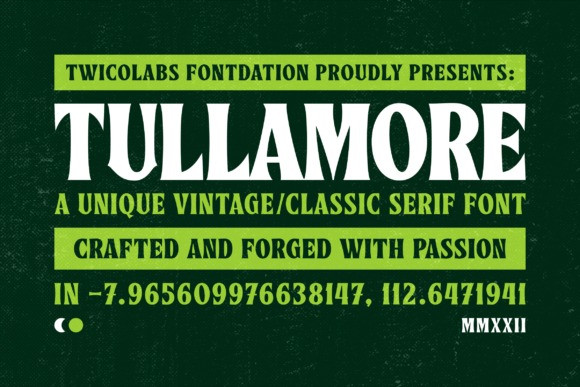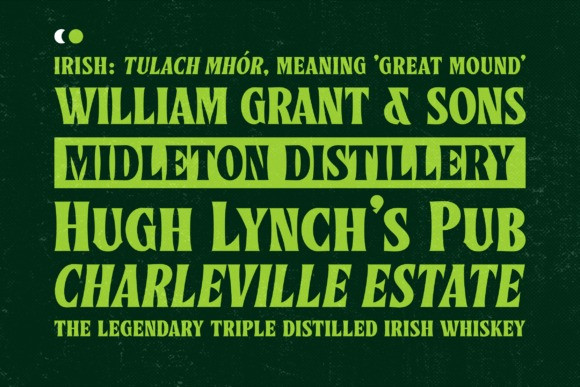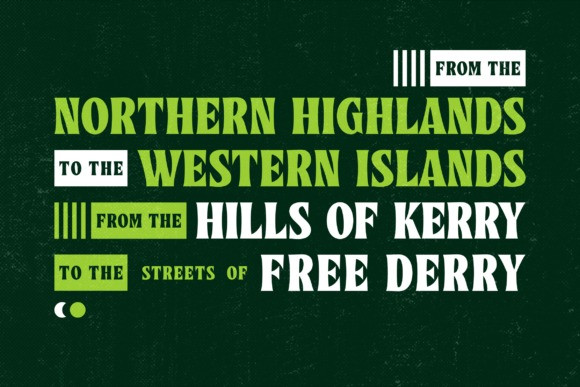
Tullamore Font
Tullamore is a display/serif font inspired by the vintage/classic letterforms. Mouse-crafted with high attention to details; clean lines, sharp edges and tempting curves. Available in slanted version too, gives you more options to play with. Suits best for title/headline, logo/logotype, and packaging/label designs, etc.